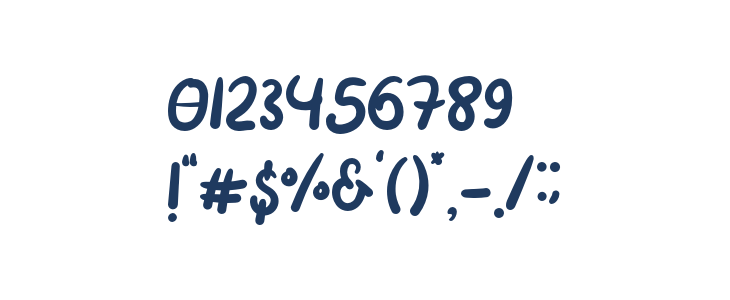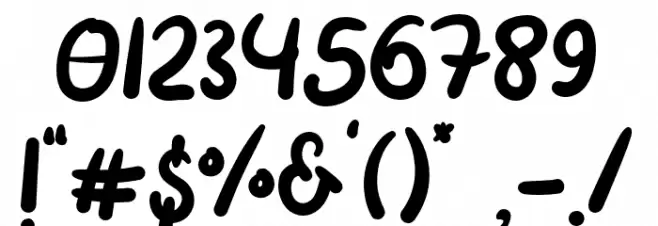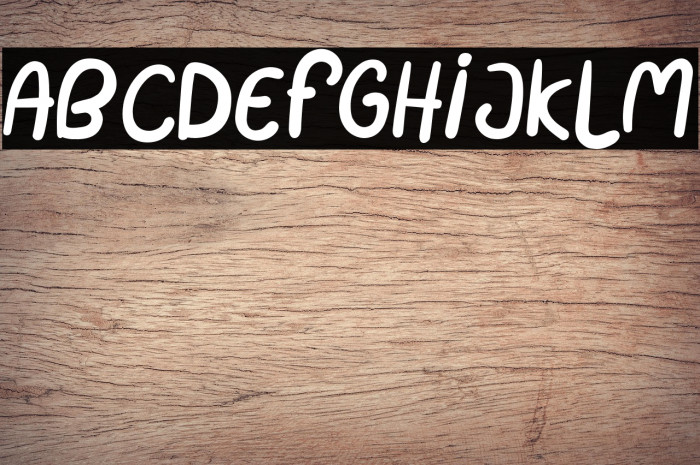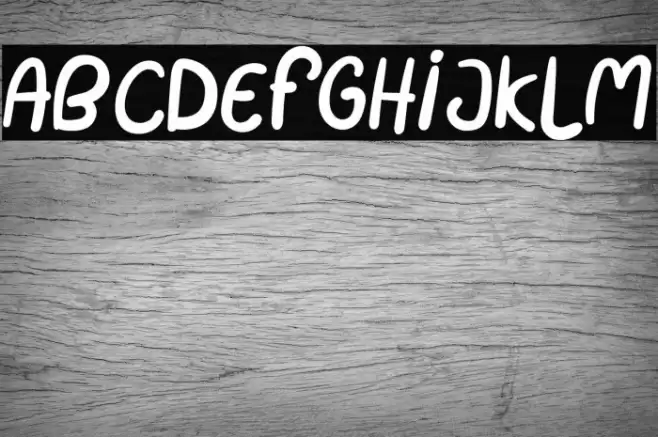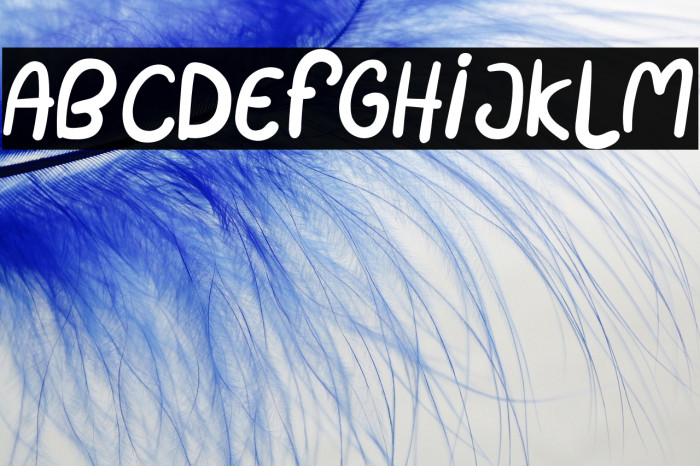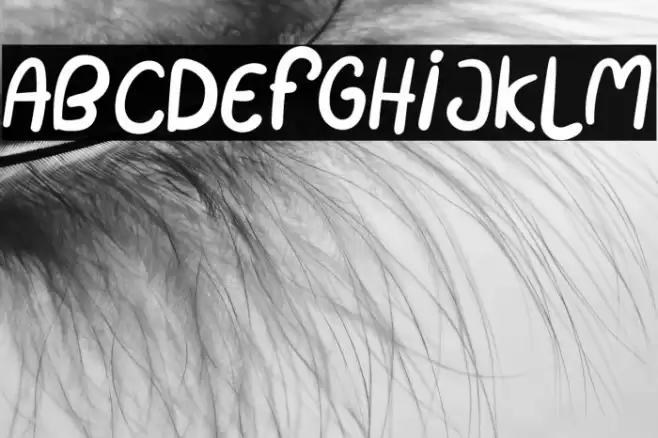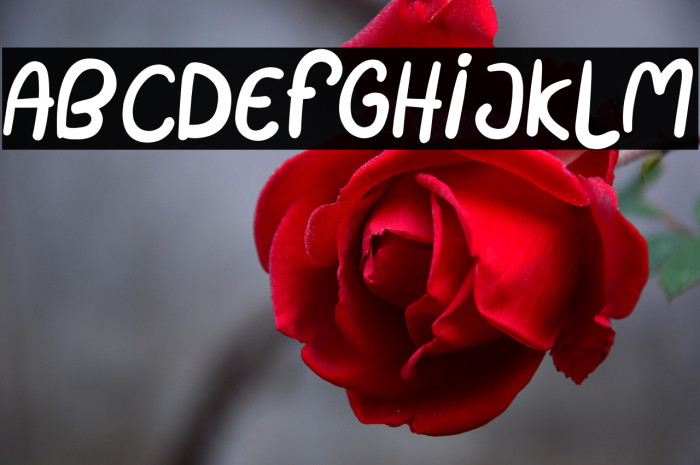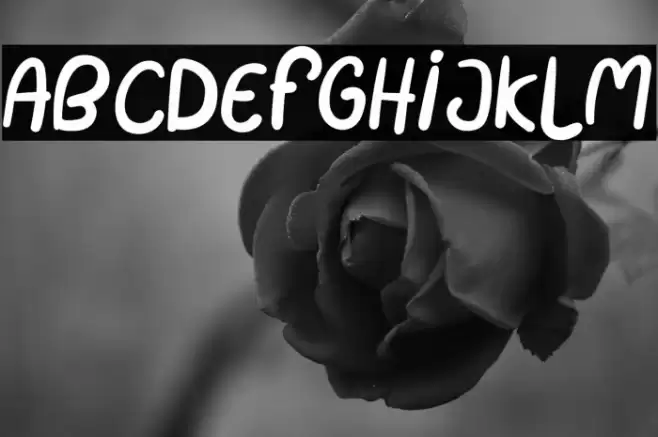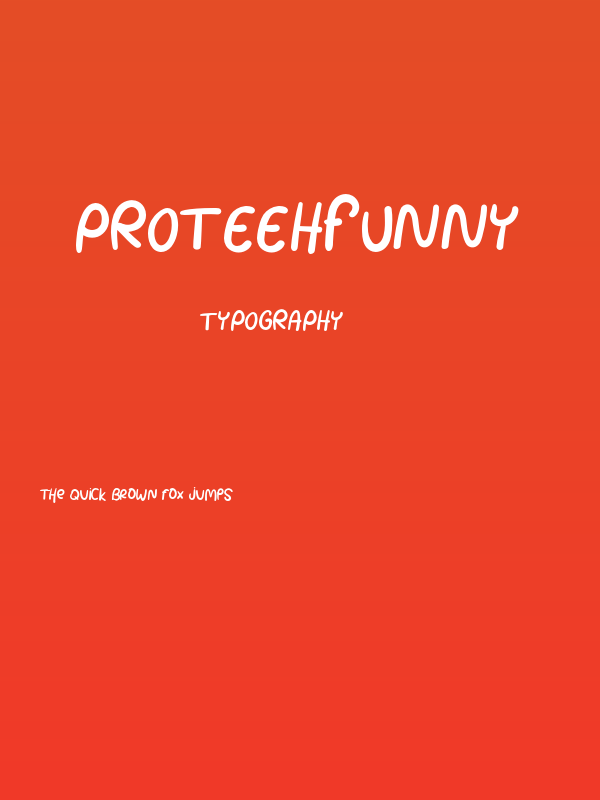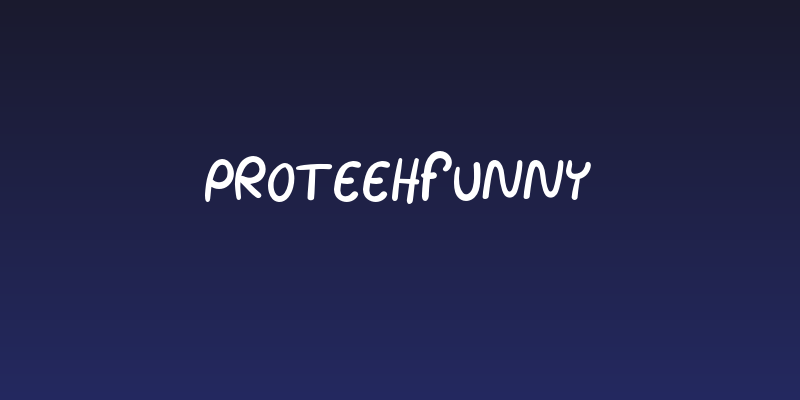
ProteehFunny Font
ProteehFunny Description
This playful and whimsical font features rounded, bold characters with a hand-drawn appearance. The letters have a consistent stroke width, giving them a uniform look, while the slightly irregular shapes add a touch of charm and personality. The font includes both uppercase and lowercase letters, numerals, and a variety of special characters. Its informal style makes it ideal for projects that require a fun and approachable aesthetic. The characters are well-spaced, ensuring readability even at smaller sizes.
| Proposed Projects | Ideal for children's books, playful branding, greeting cards, and casual invitations. |